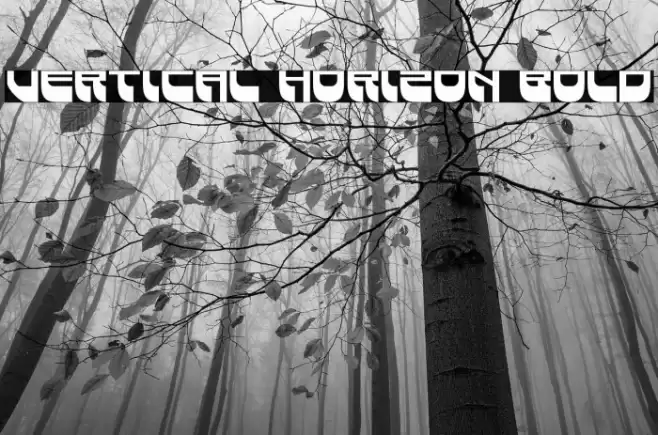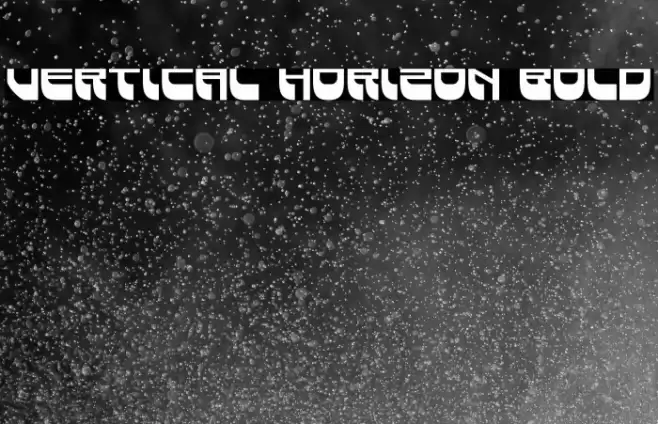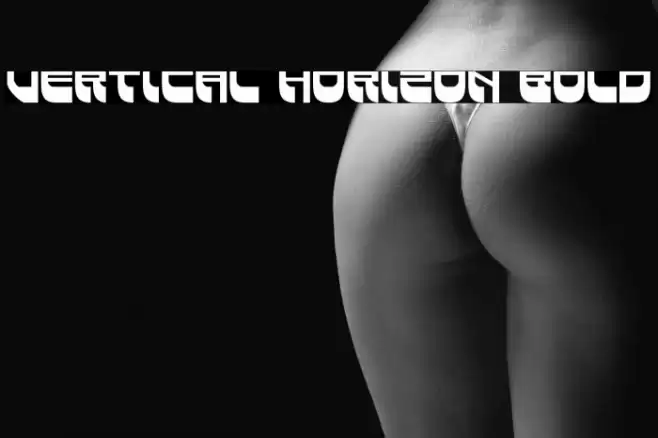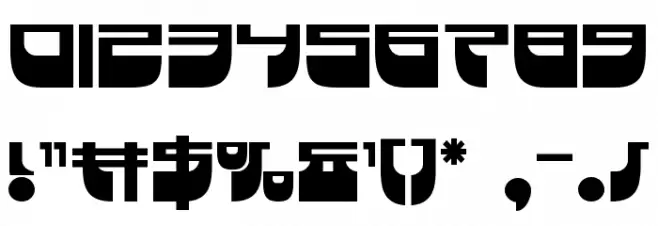
Vertical Horizon Bold Font
Vertical Horizon Bold Description
This bold, futuristic font features a unique geometric design with strong, angular lines and a distinct blocky appearance. The characters are crafted with a high level of symmetry and precision, creating a sense of modernity and technological advancement. The uppercase and lowercase letters maintain a consistent style, while the numerals and special characters complement the overall aesthetic. The font's bold weight and wide character spacing enhance its readability, making it suitable for impactful headlines and attention-grabbing designs. Its distinctive style is ideal for projects that require a modern and edgy look.
A bold, futuristic font with geometric, angular lines and a blocky appearance from Uncategorized fonts.
- Proposed Projects: Ideal for tech-related branding, sci-fi movie posters, video game titles, and modern advertising campaigns.
- Character Spacing: Wide